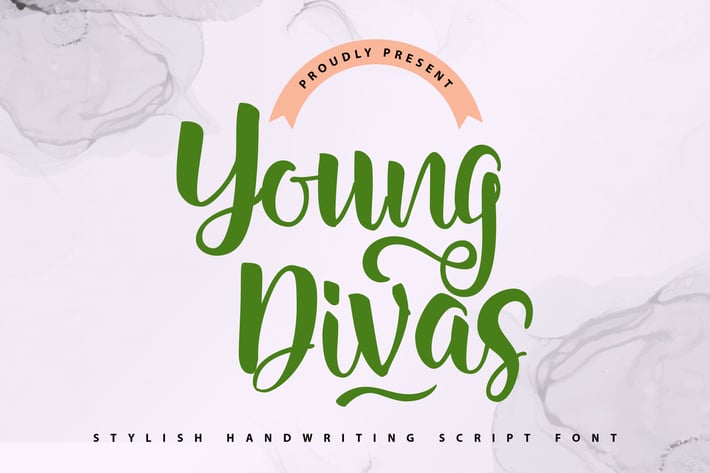
Youngdivas | Stylish Handwriting Script Font
Youngdivas | Stylish Handwriting Script Font with a calligraphy style, So beautiful on invitation like greeting cards, branding materials, business cards, quotes, posters, and more!